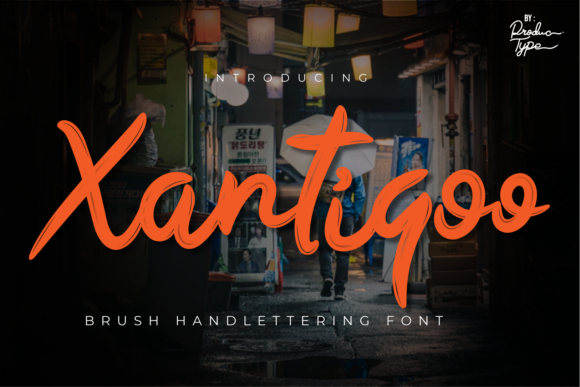
Dive into the world of Xantiqoo—a script font family that embodies the essence of casual elegance. Inspired by the art of handwritten notes, Xantiqoo captures the charm of cursive letters, making it the perfect choice for adding a personal touch to your digital creations.
Immerse yourself in the beauty of Xantiqoo's thick, flowing strokes that dance across the page, evoking a sense of warmth and authenticity. Each character is crafted with meticulous care, ensuring that your words come alive with a touch of sophistication and charm.
Unleash your creativity with Xantiqoo's versatility, seamlessly adapting to a wide range of design projects. Whether you're crafting heartfelt quotes, eye-catching headlines, or unique logos, Xantiqoo effortlessly elevates your designs, leaving a lasting impression on your audience.
Experience the magic of Xantiqoo and transform your digital creations into captivating masterpieces. Its timeless appeal and versatility make it the perfect font for designers, bloggers, and creatives seeking to add a touch of elegance and charm to their work.
Embrace the beauty of handwritten charm with Xantiqoo—the font that captures the essence of authentic expression. Let your words flow with grace and elegance, leaving a trail of beauty in their wake.